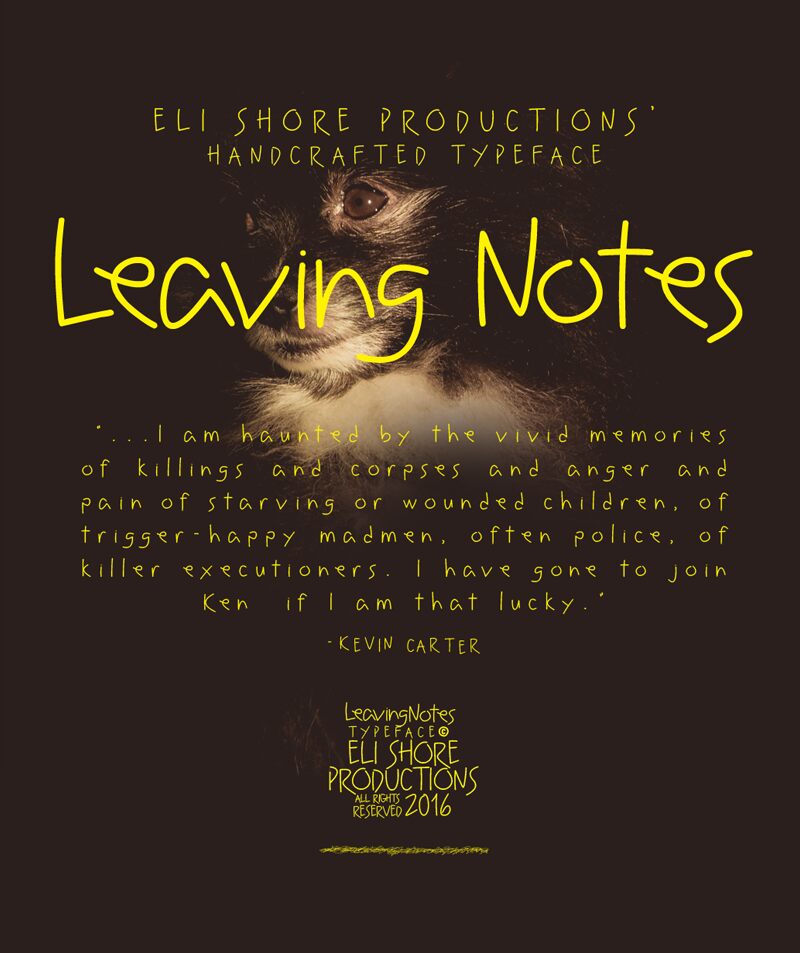
Leaving Notes - emotioned typeface great for expressing your feelings and thoughts to your blogs/vlogs, notes, music videos, book covers, posters, stories and to any writings you have.
Leaving Notes
Eli Shore